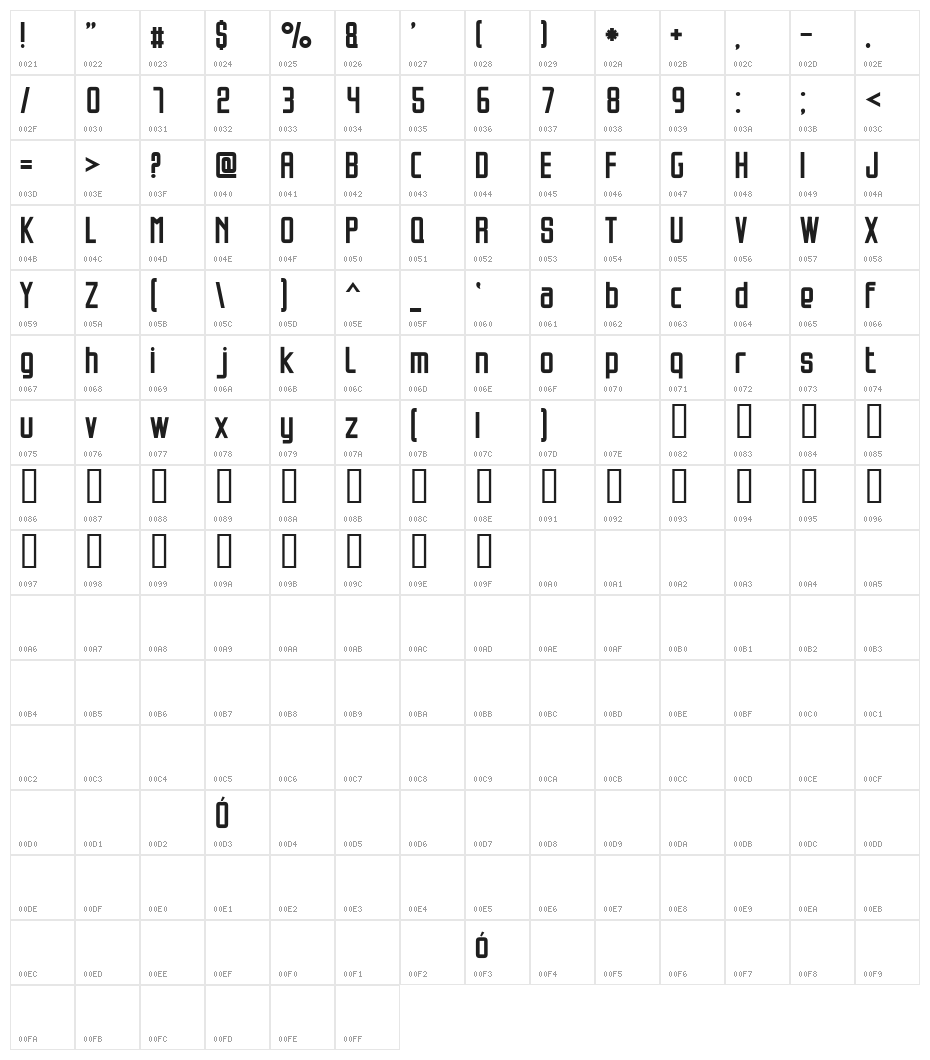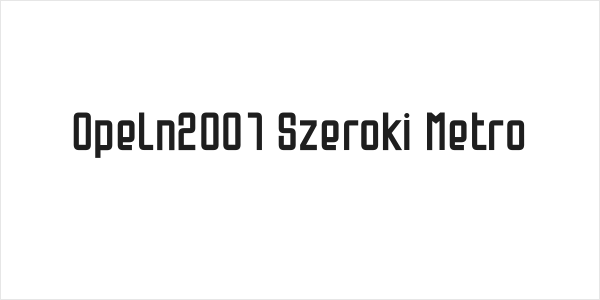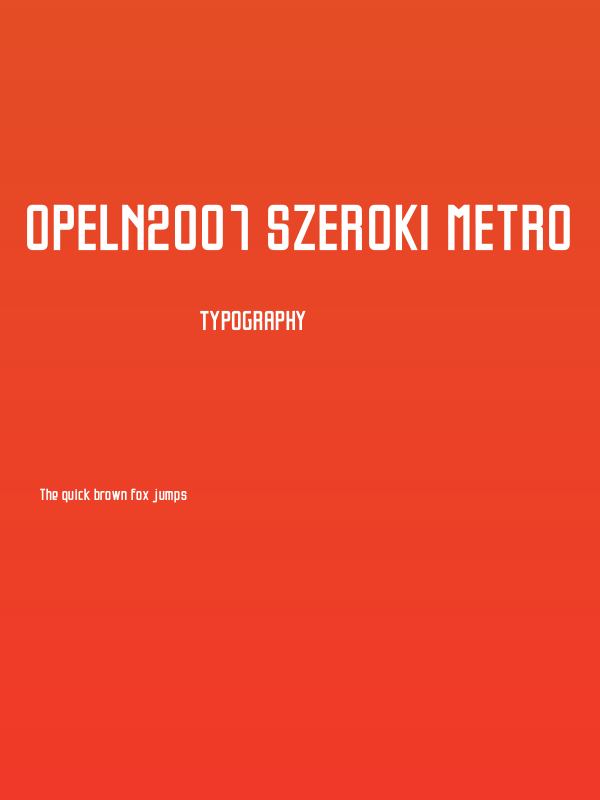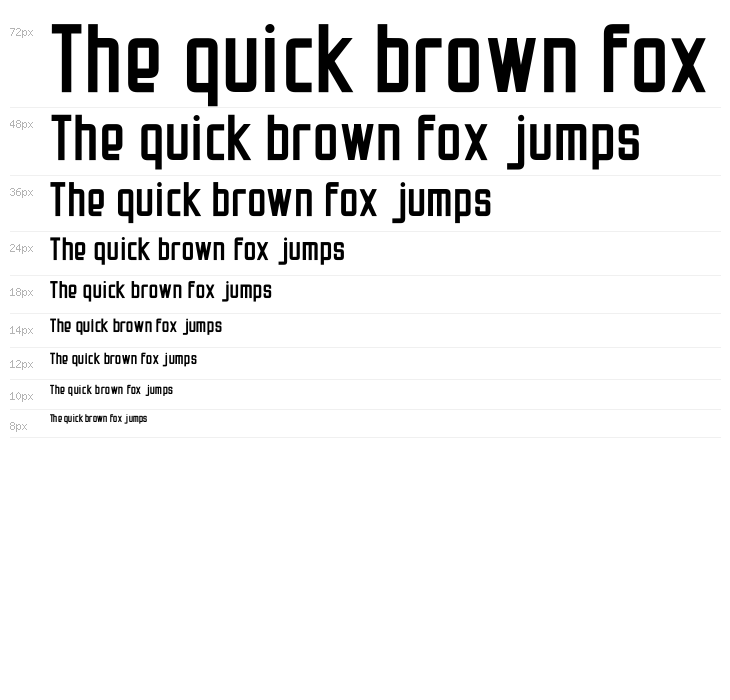
Opeln2001 Szeroki Metro Font
Opeln2001 Szeroki Metro Description
This font presents a bold and geometric style with a modern flair. The characters are constructed with straight lines and sharp angles, giving them a structured and clean appearance. The uppercase letters are uniform in height, while the lowercase letters maintain a consistent baseline, enhancing readability. The numerals are distinct and align well with the overall design, making them suitable for various applications. Special characters are clearly defined, adding versatility to the font. The overall look is both contemporary and functional, ideal for digital and print media.
| Proposed Projects | Ideal for branding, signage, posters, and digital media where a modern and bold statement is needed. |